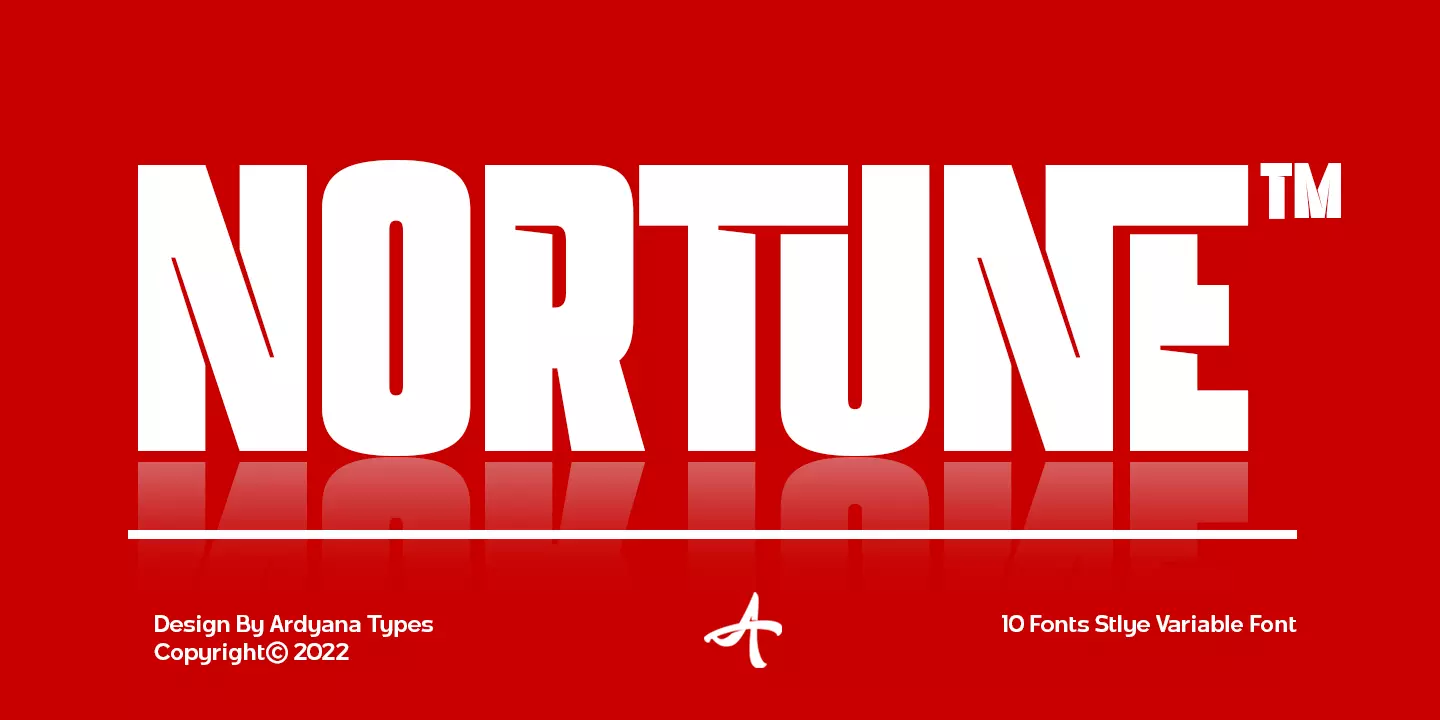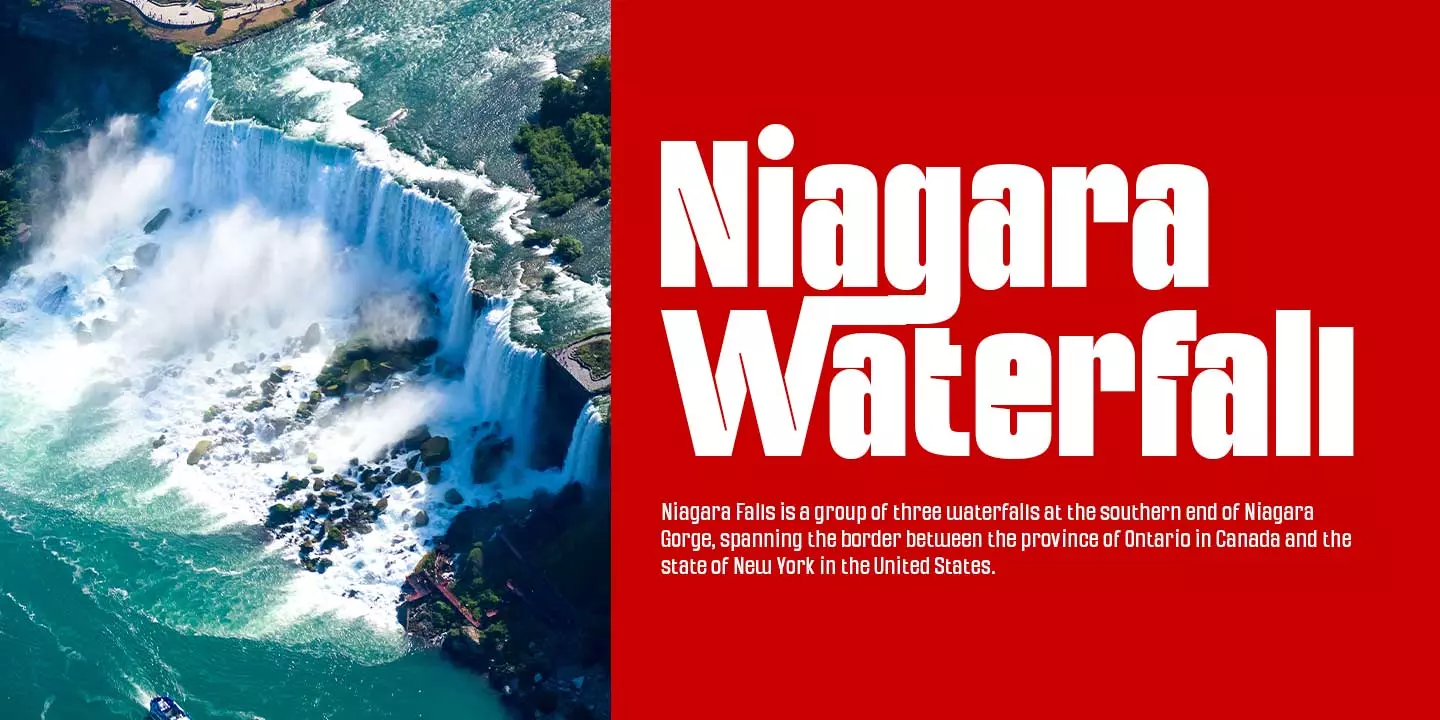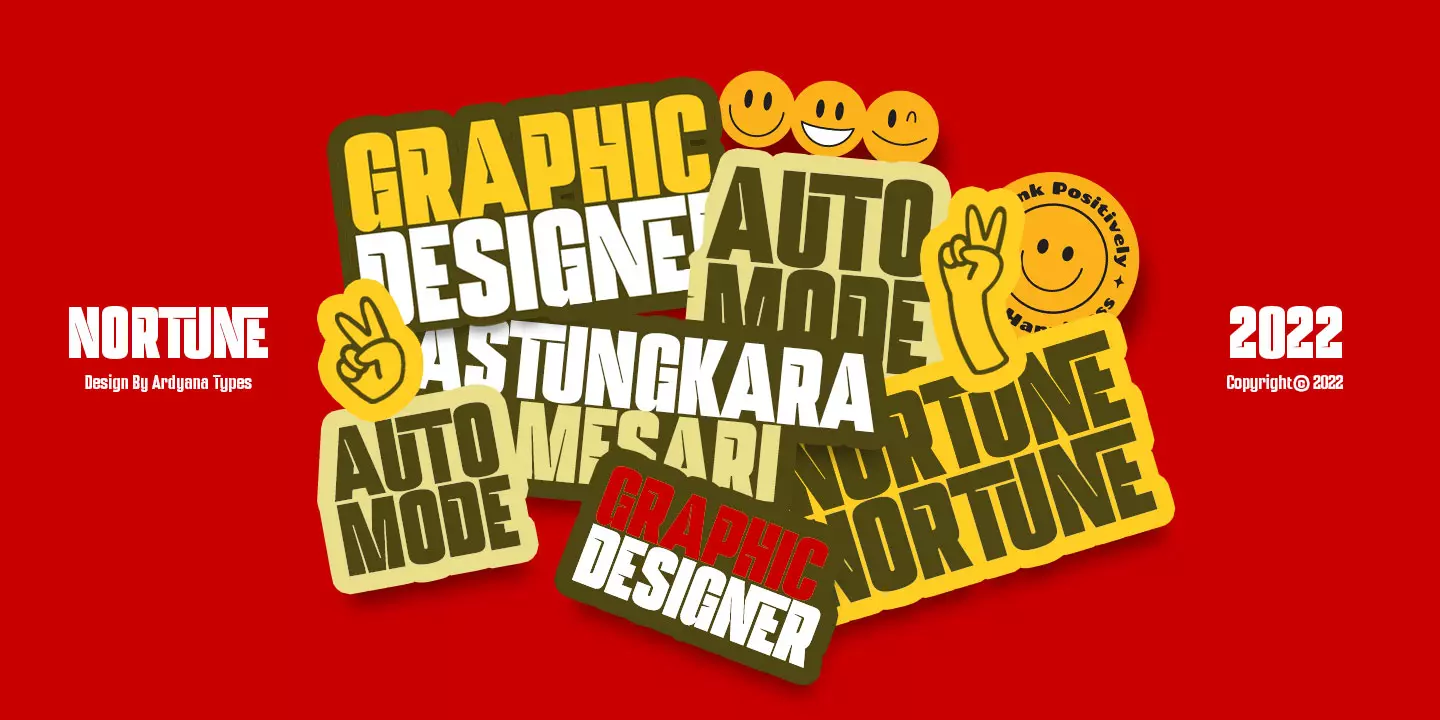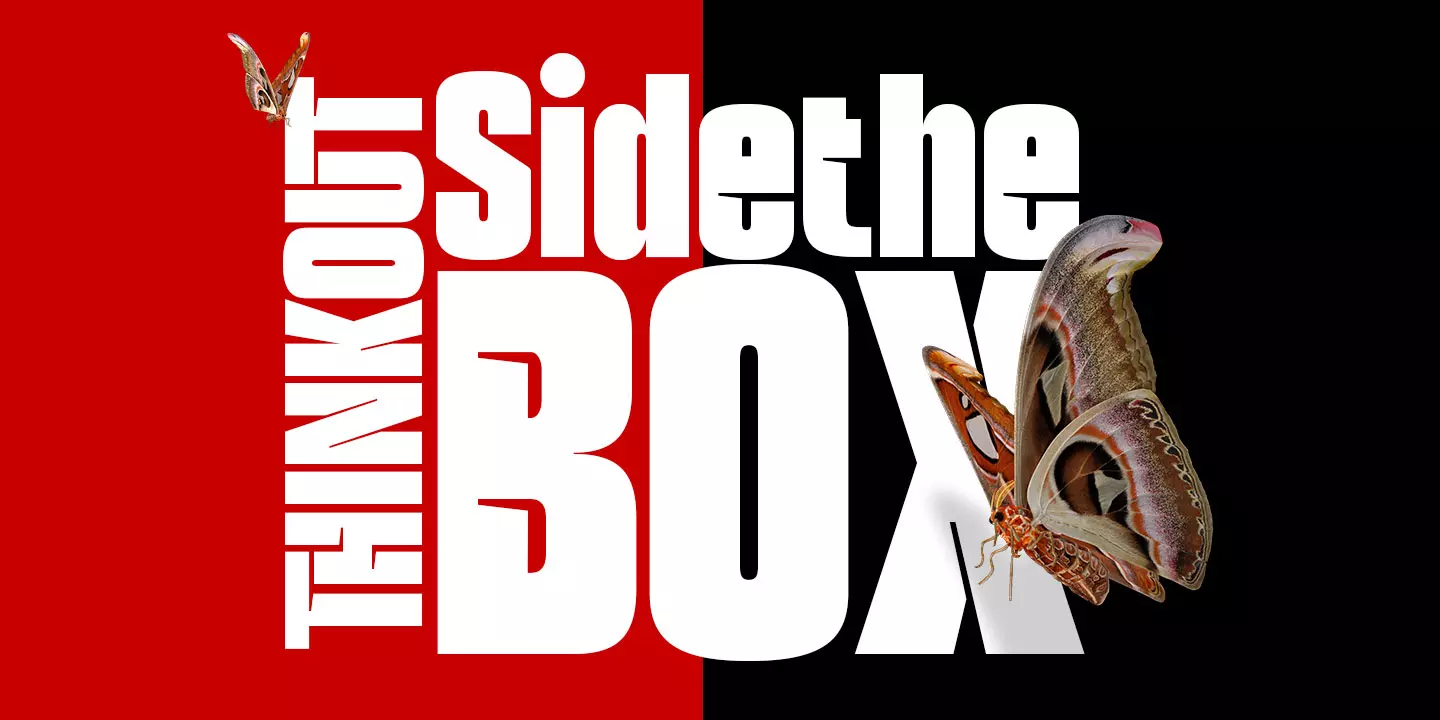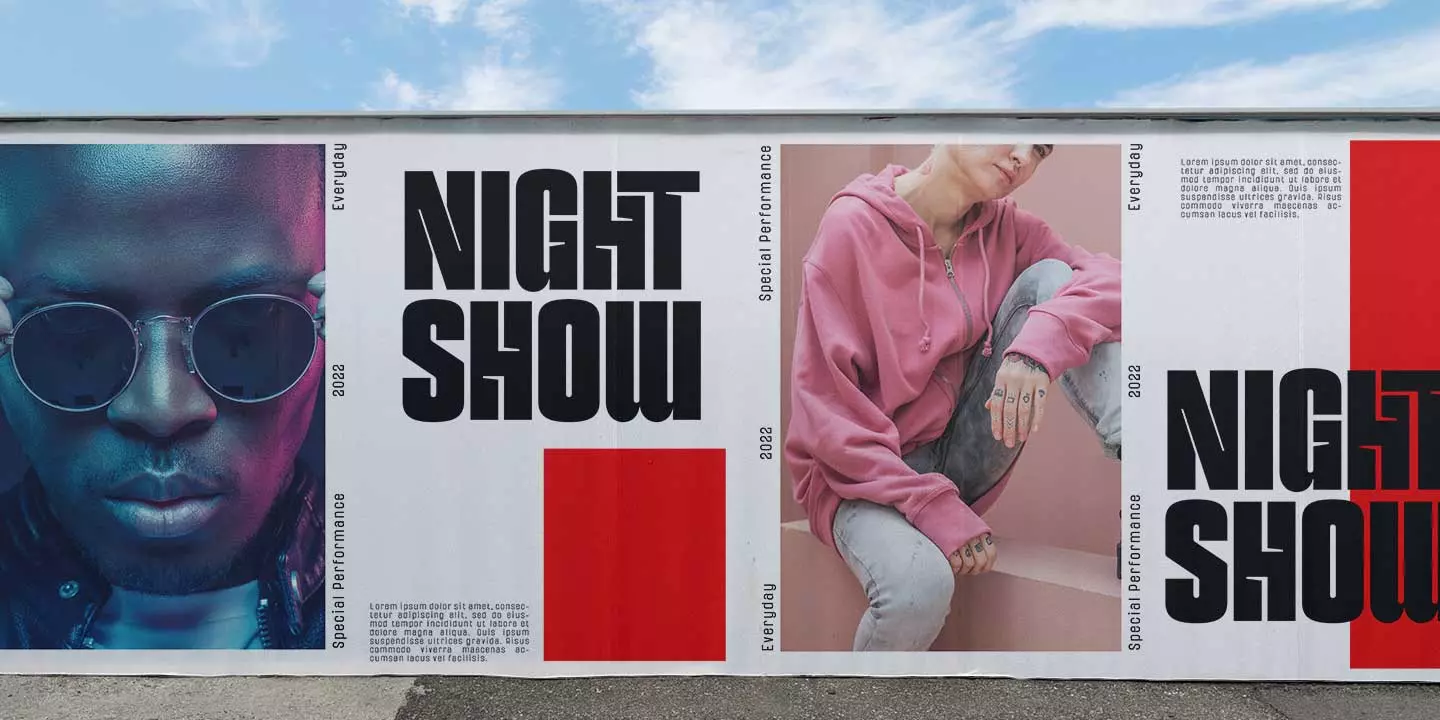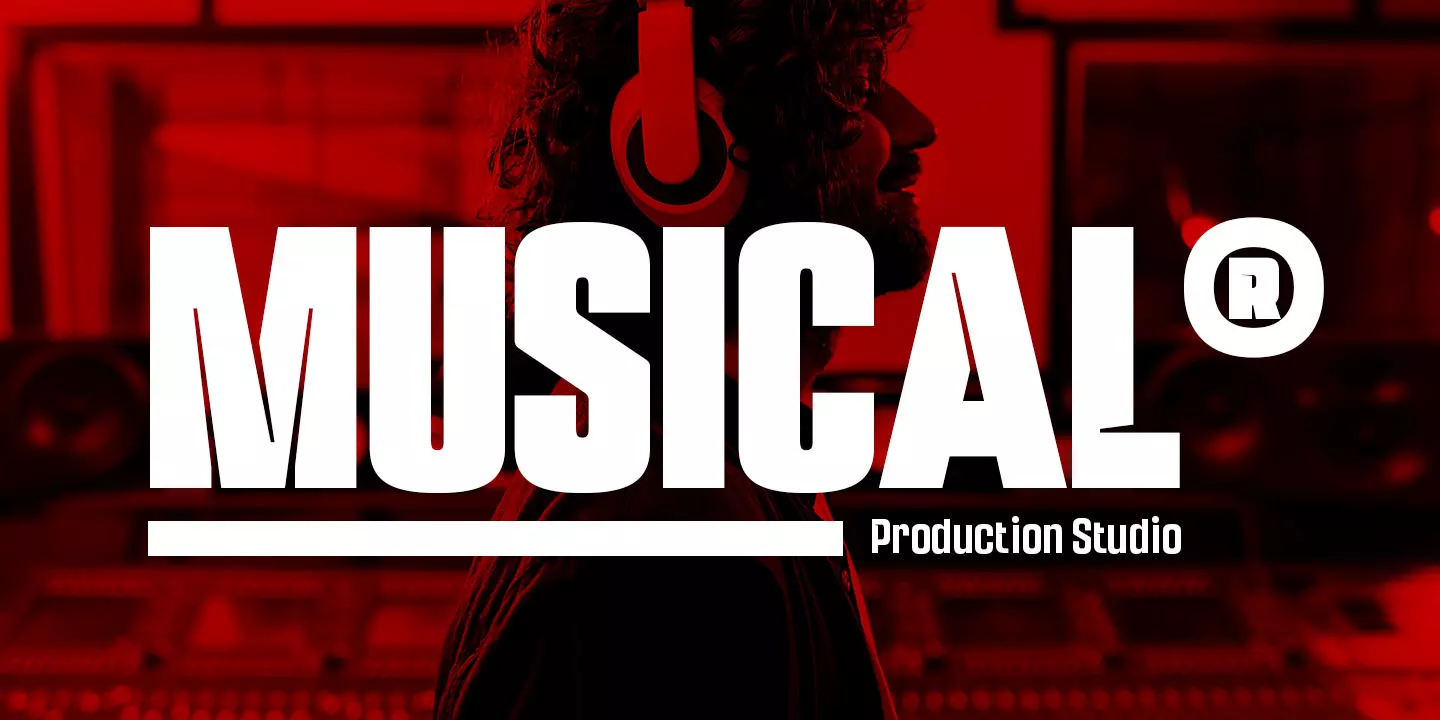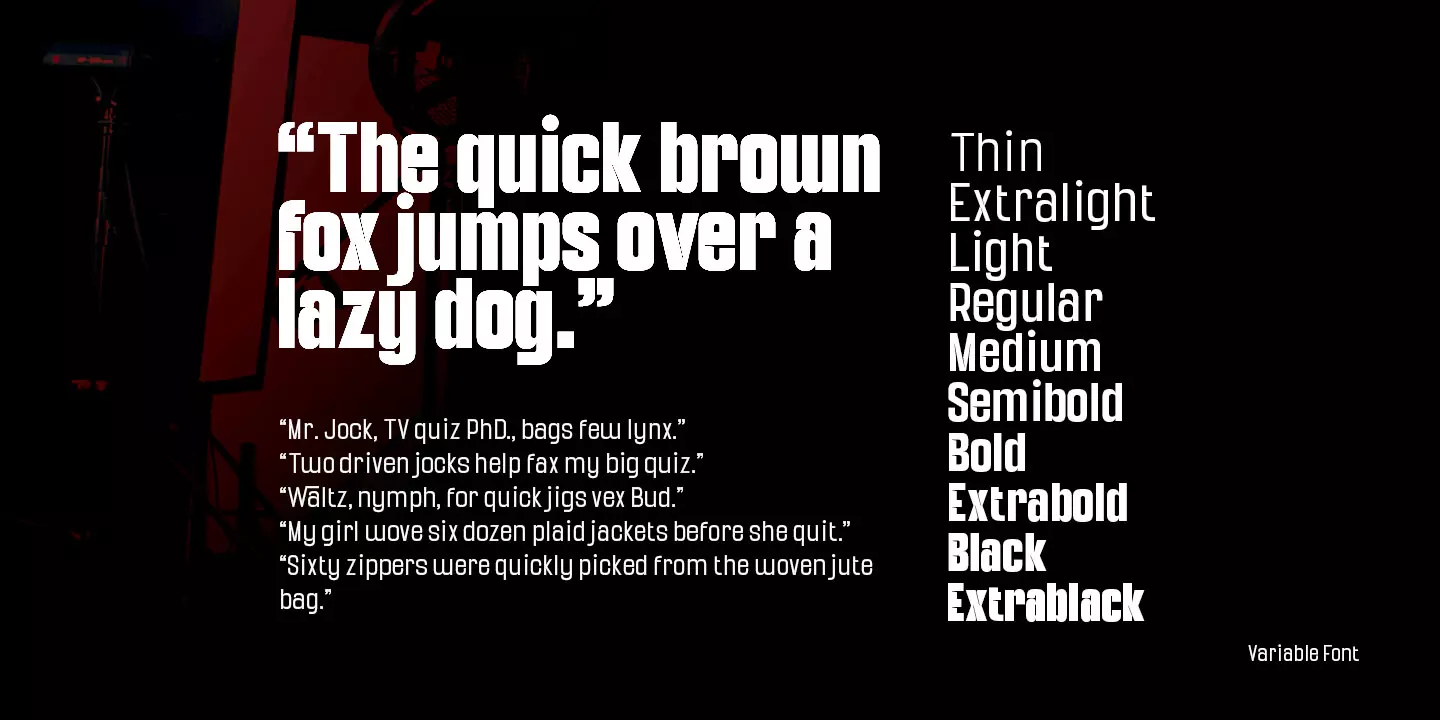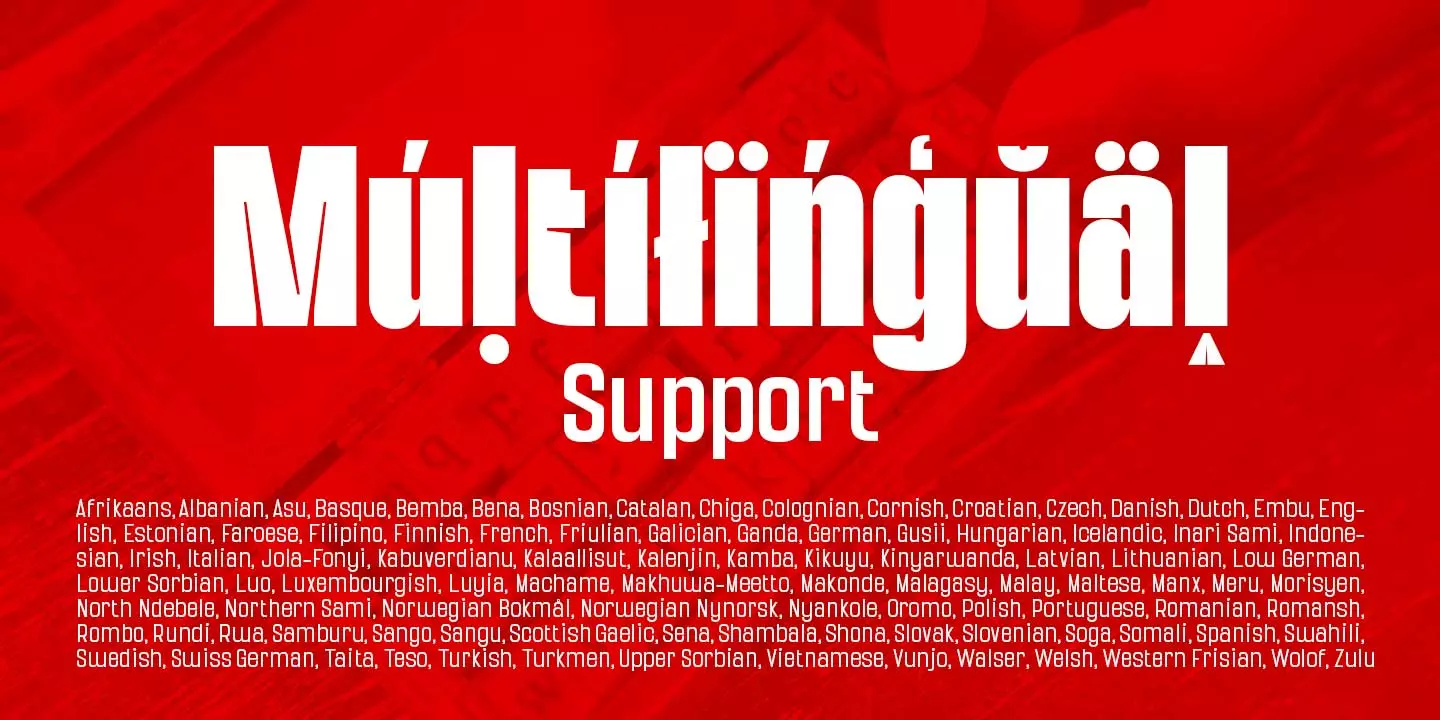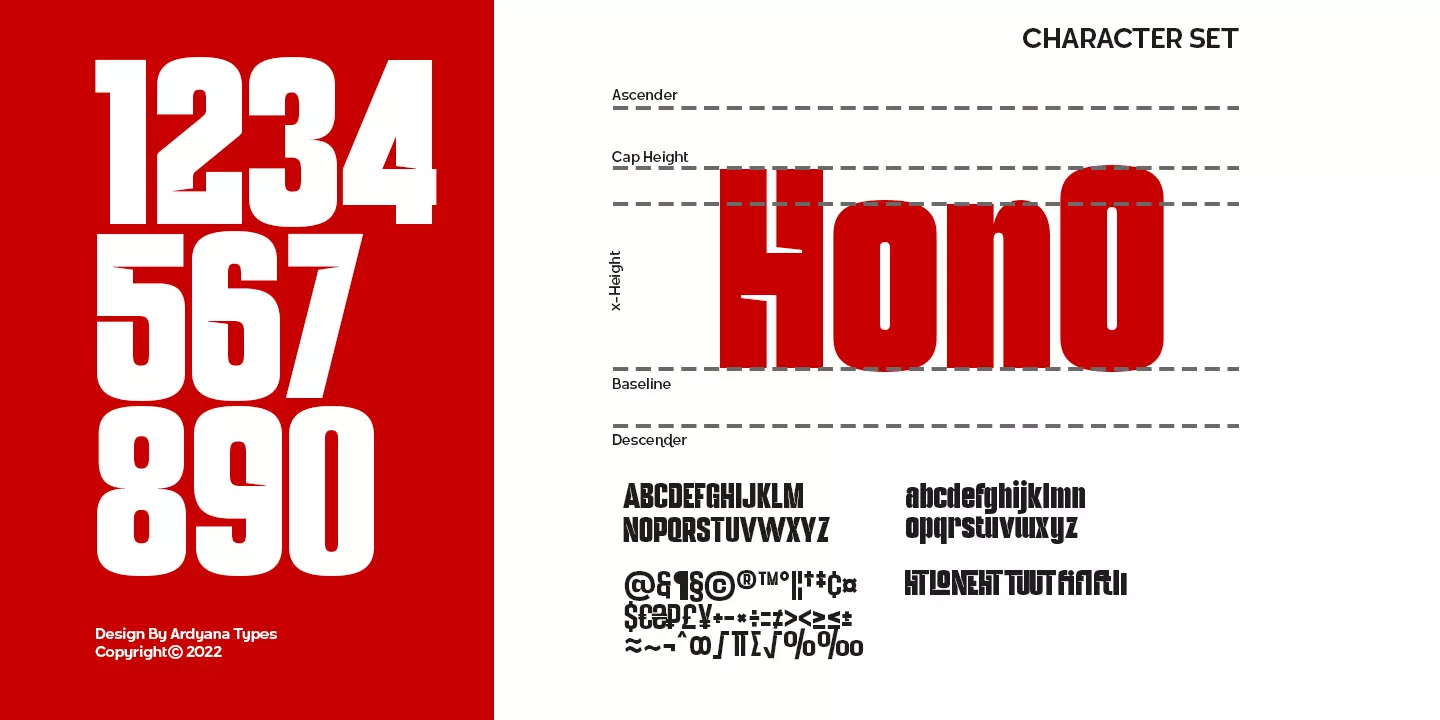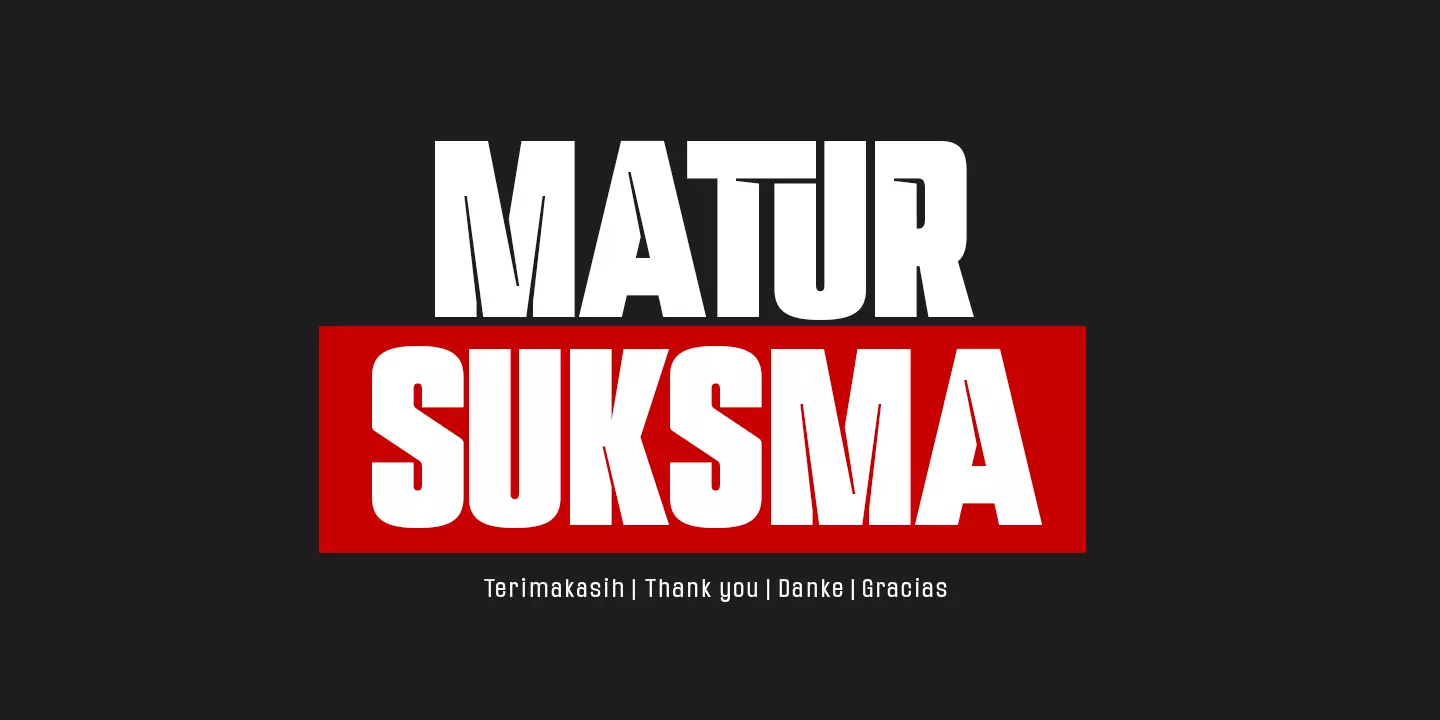
Nortune
10 Styles
Nortune is inspired by modern style combined with retro style so that it has a dynamic and elegant shape. This will be very suitable for use in any design that has a modern, retro, and classic feel. Nortune also has 10 thicknesses so it will be very easy to use on any design you have in mind. It also comes with multiple languages, making it easy to use for any country and language. Nortune also comes with alternative Ligatures and styles to make your designs more attractive. Alternate fonts will also create lots of options to combine. This modern letter shape will be very suitable to be combined with various types of fonts. Nortune is suitable for branding projects and various design purposes such as business cards, name tags, advertisements, posters, invitations, branding, logos, magazines, merchandise, presentations, etc.
• HT HT
• LO LO
• NE NE
• TH TH
• TU TU
• UT UT
• ft ft